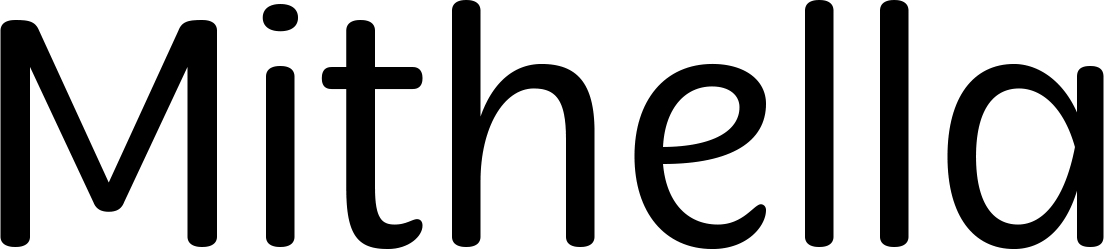
Mithella Font
Establish the most sociable typography that has a friendly feel, by amplifying Mithella which is a sans-serif font available in 2 weights! The bold characters have a playful format, they are modern and easy on the eye.
Mithella is perfect for books, apps, games, branding, and websites as it comes with a full set of letterforms in a clear and organized manner that releases a relaxed mood making it a decent strategy!